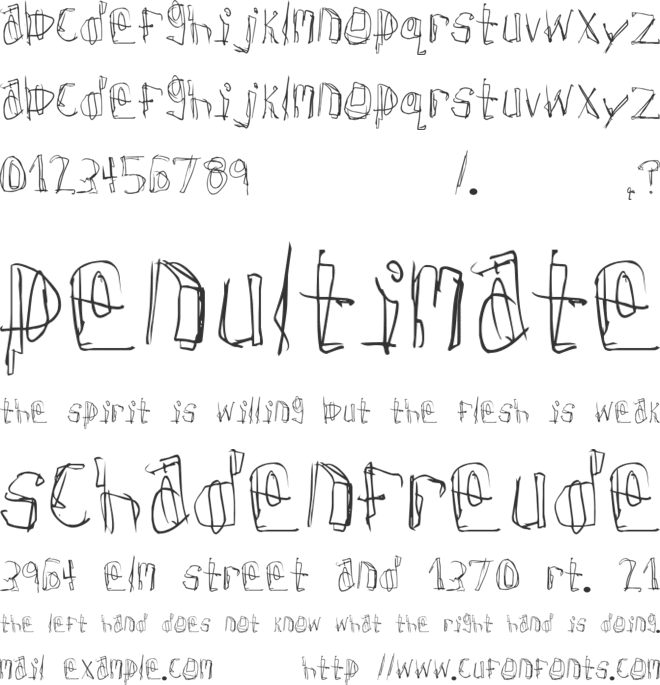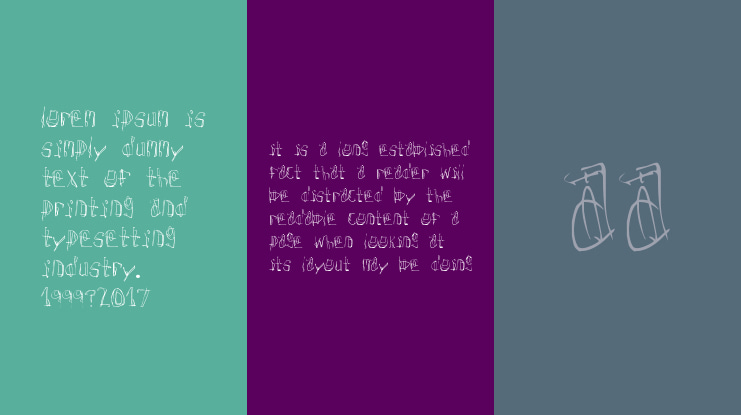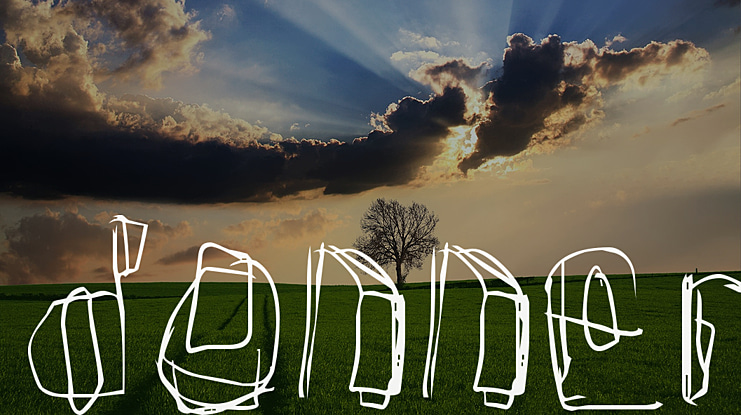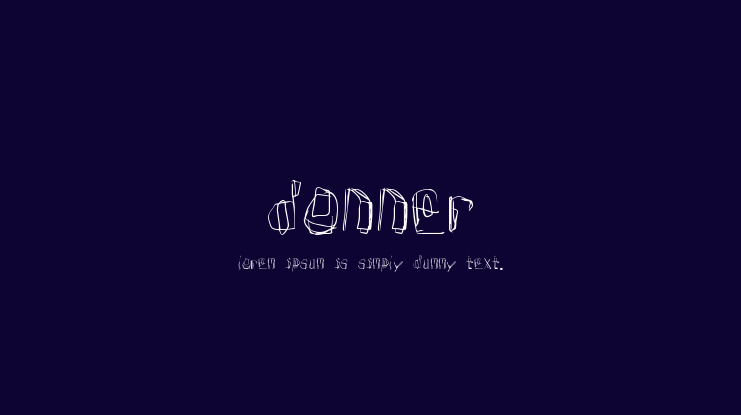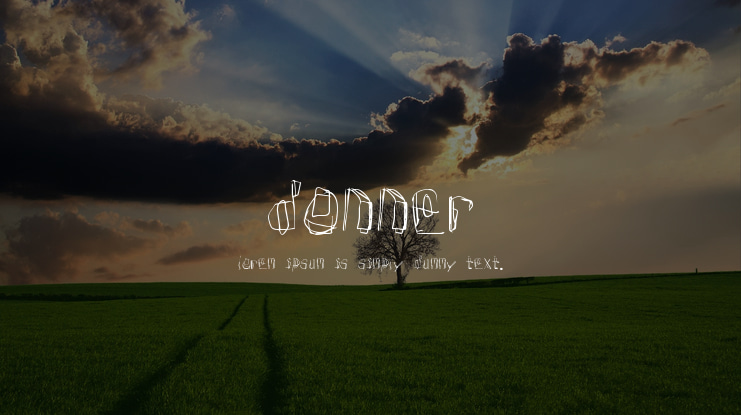
Tom Murphy 7
(Caps/Lower [same], numbers, some punctuation/special) is the name of my residence hall at college. If you were freezing to death and writing in blood with a sharpened stick, this is what it might look like. I would recommend this for headlines only, and it is somewhat difficult to read at small sizes. (28 September 1997)